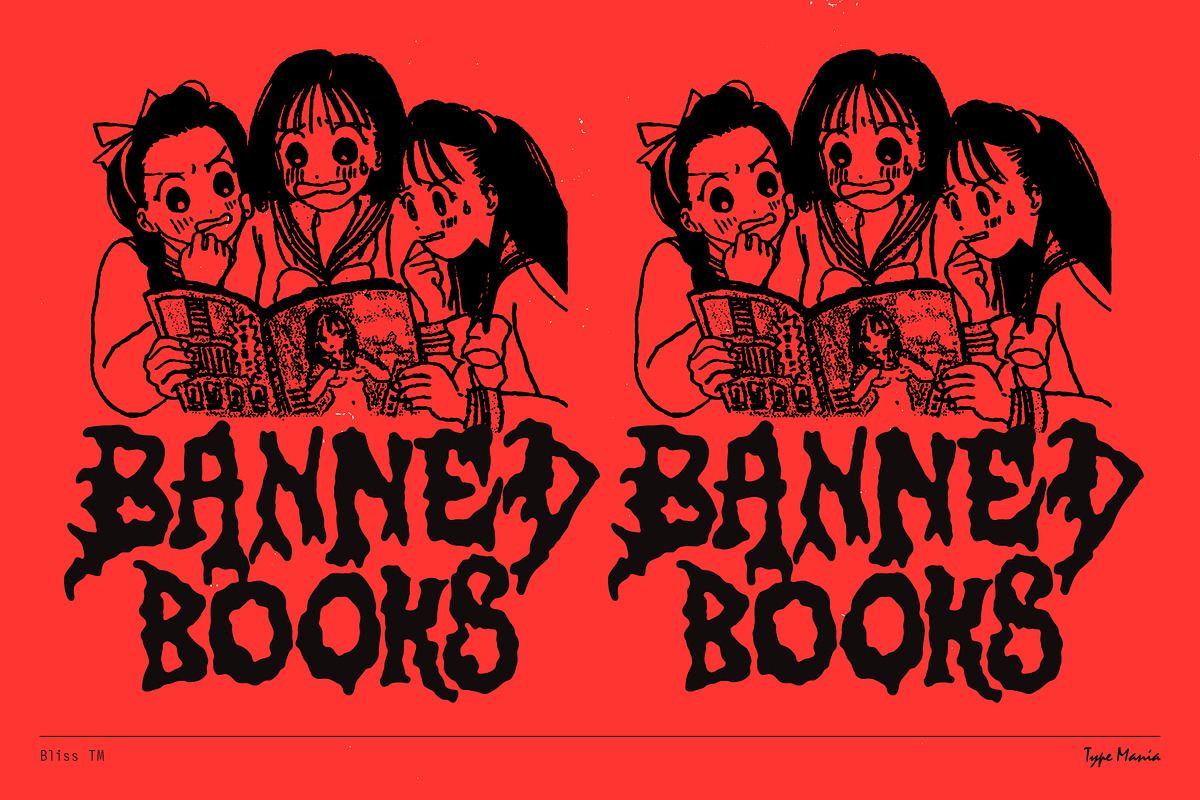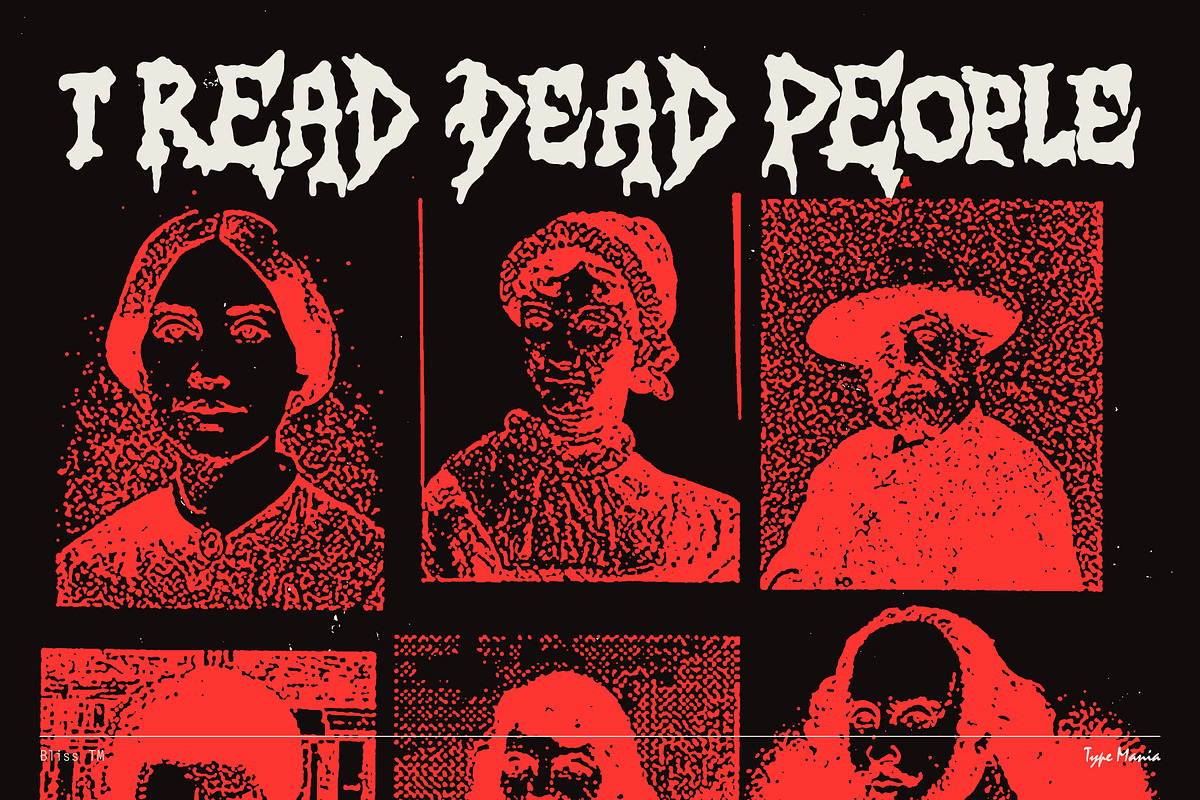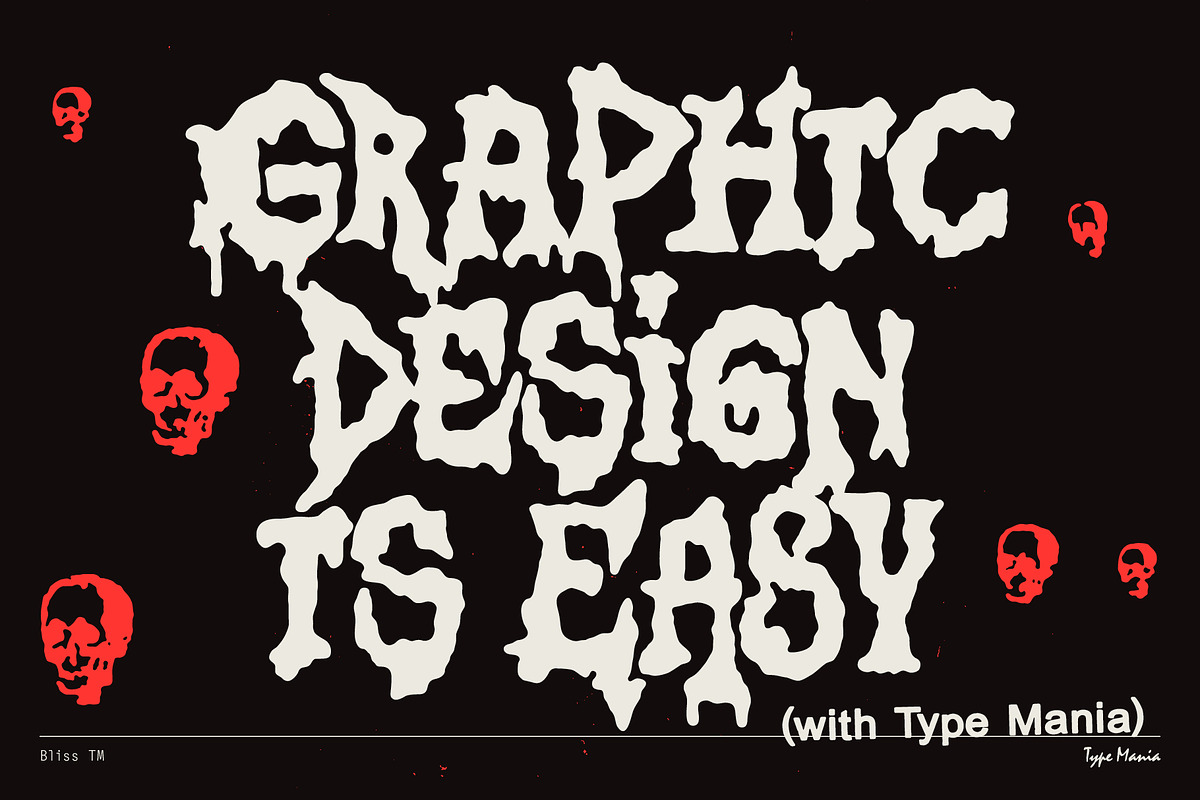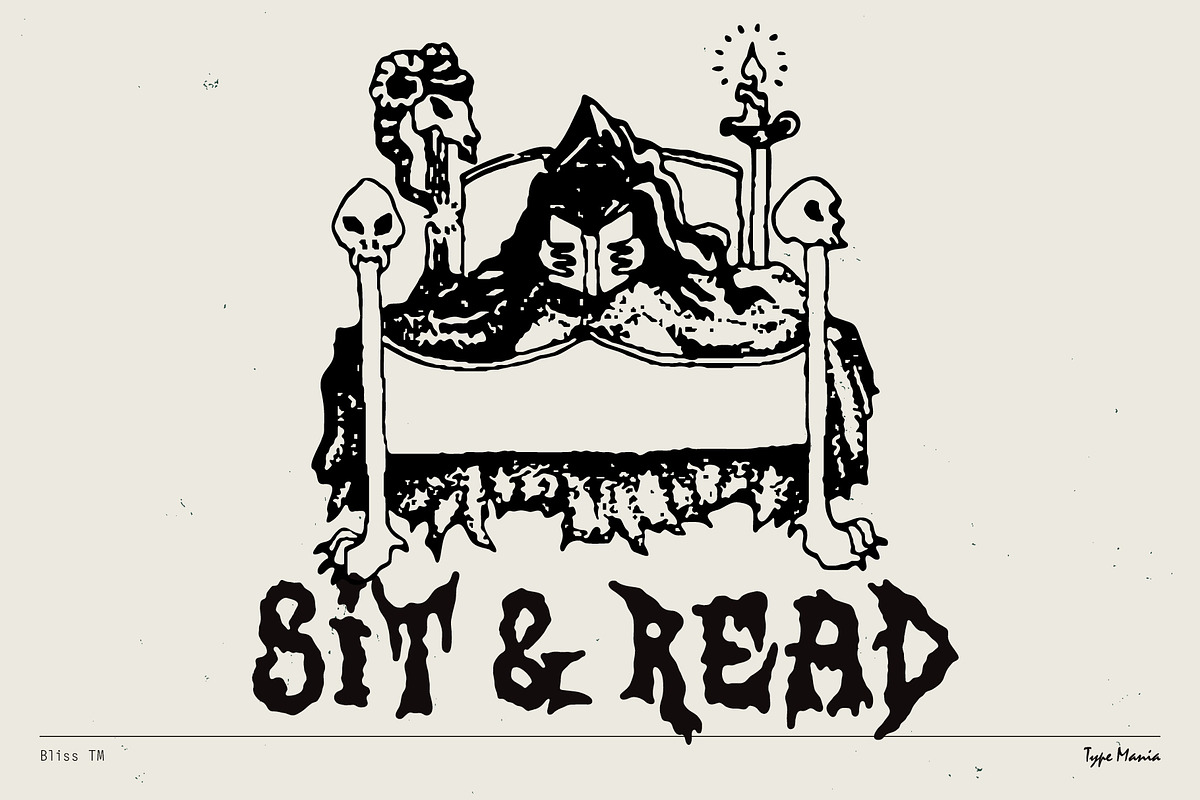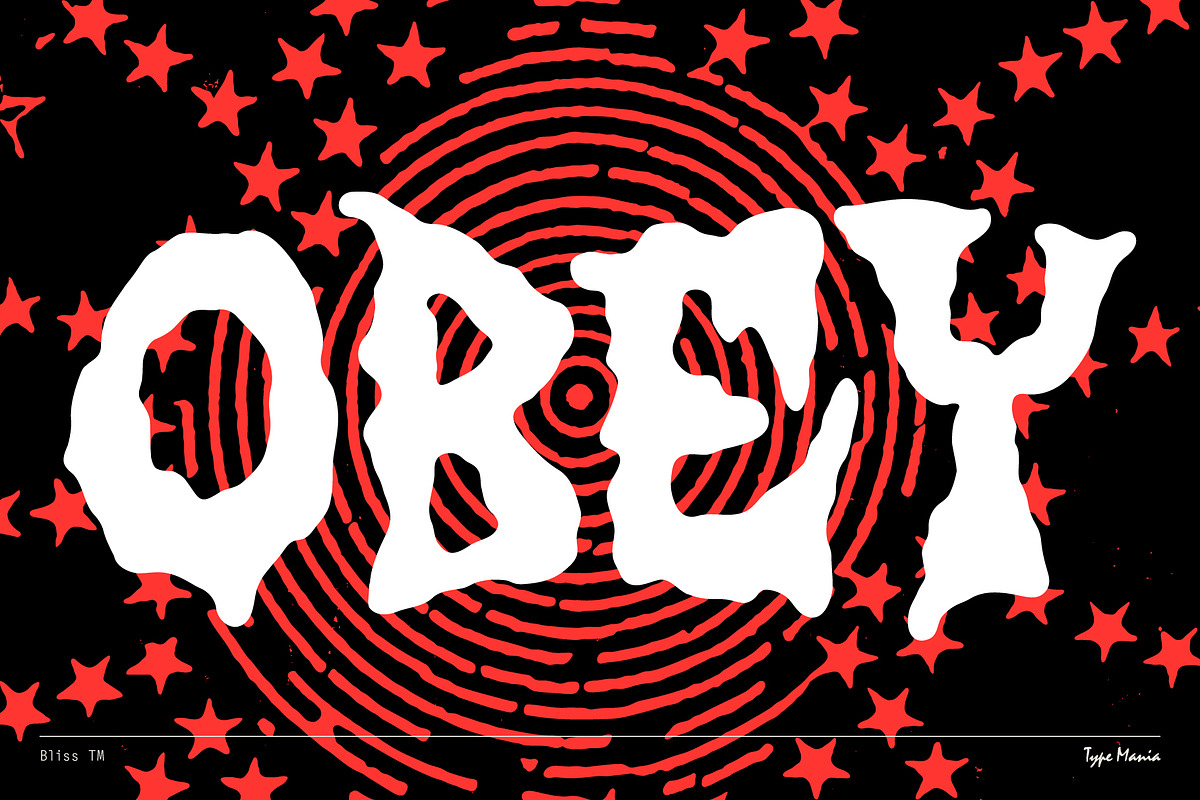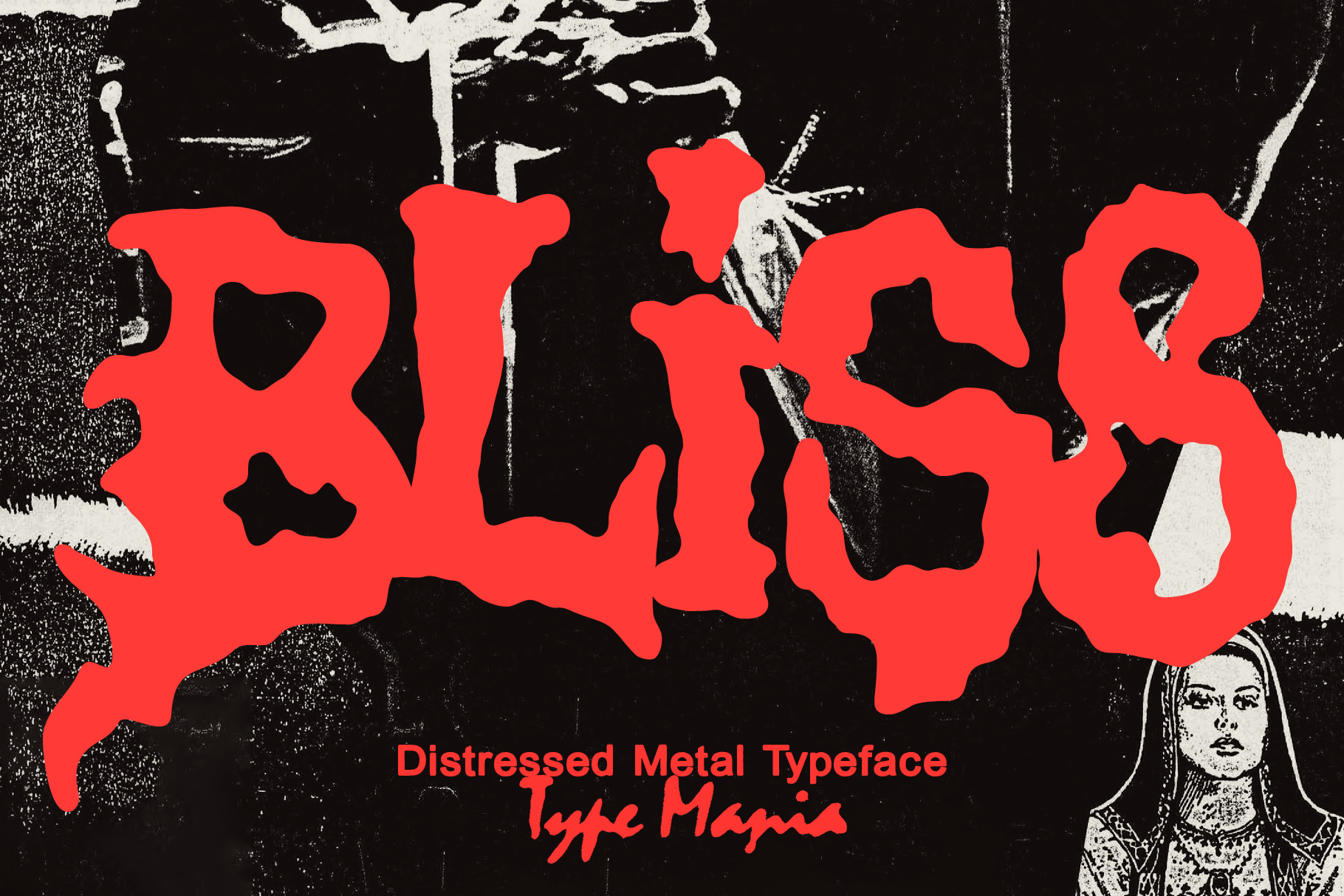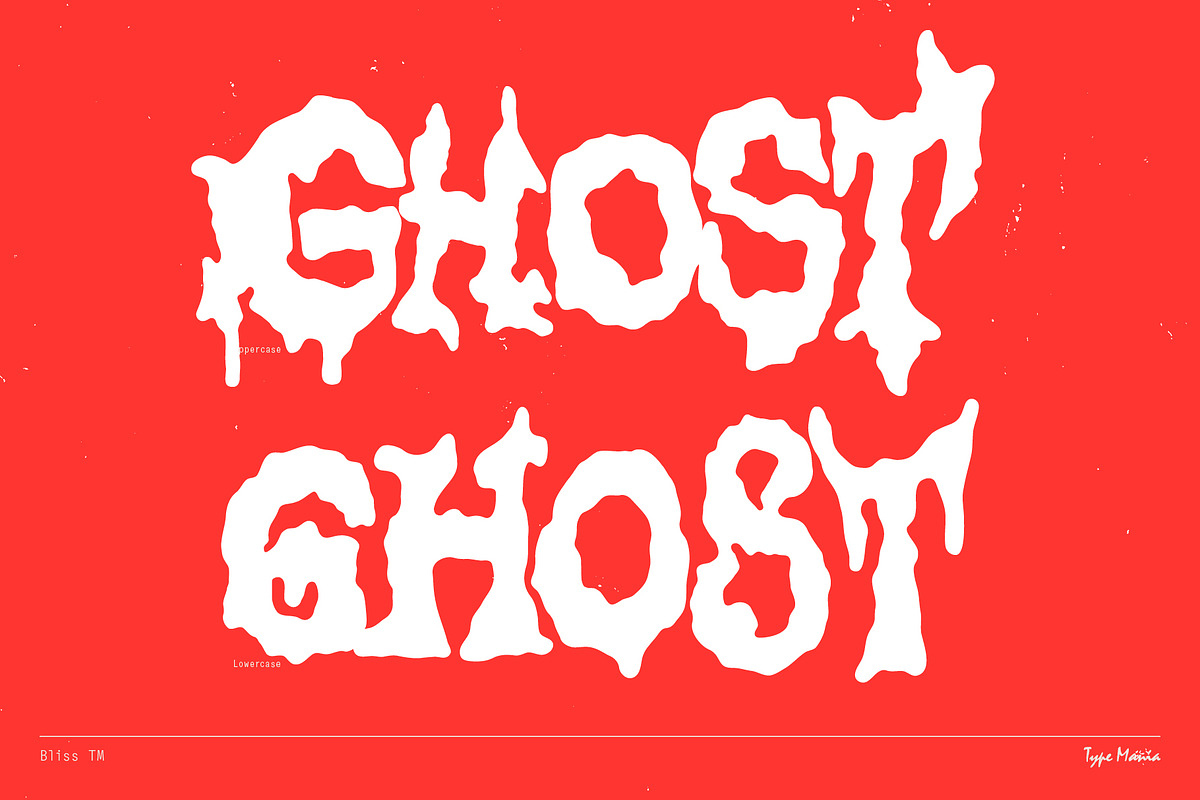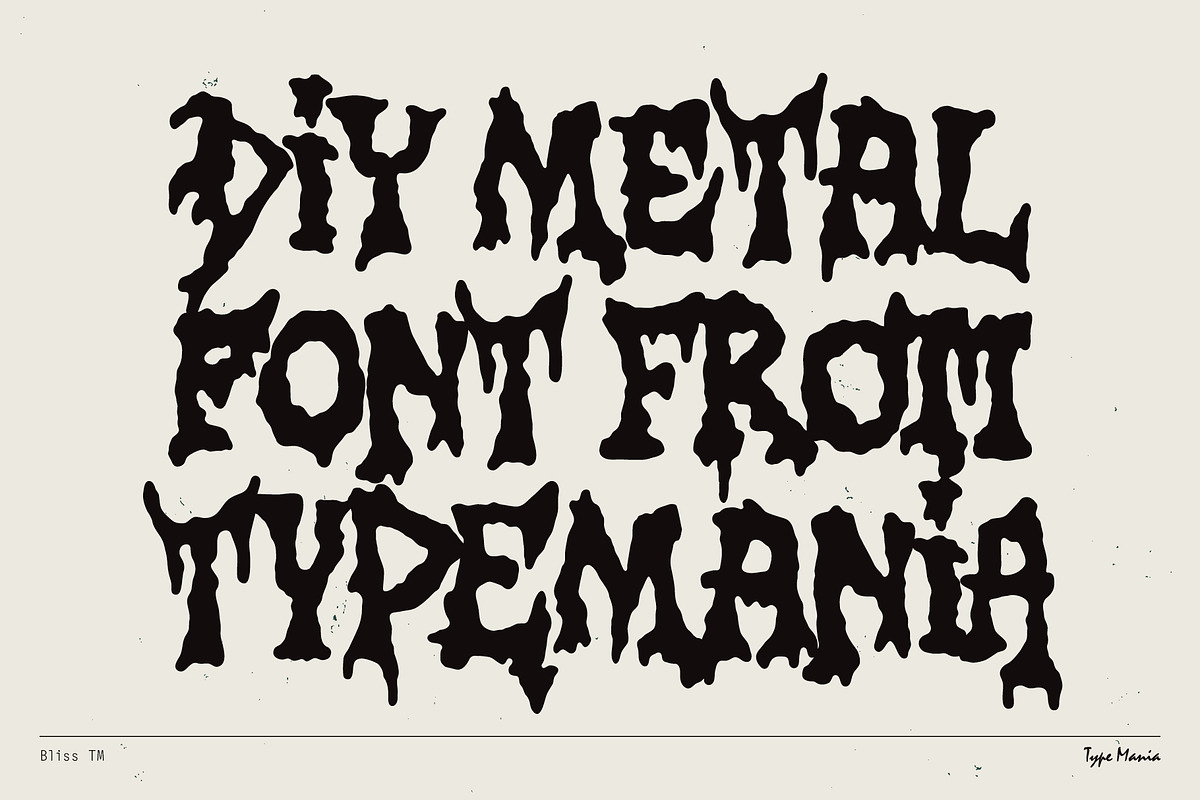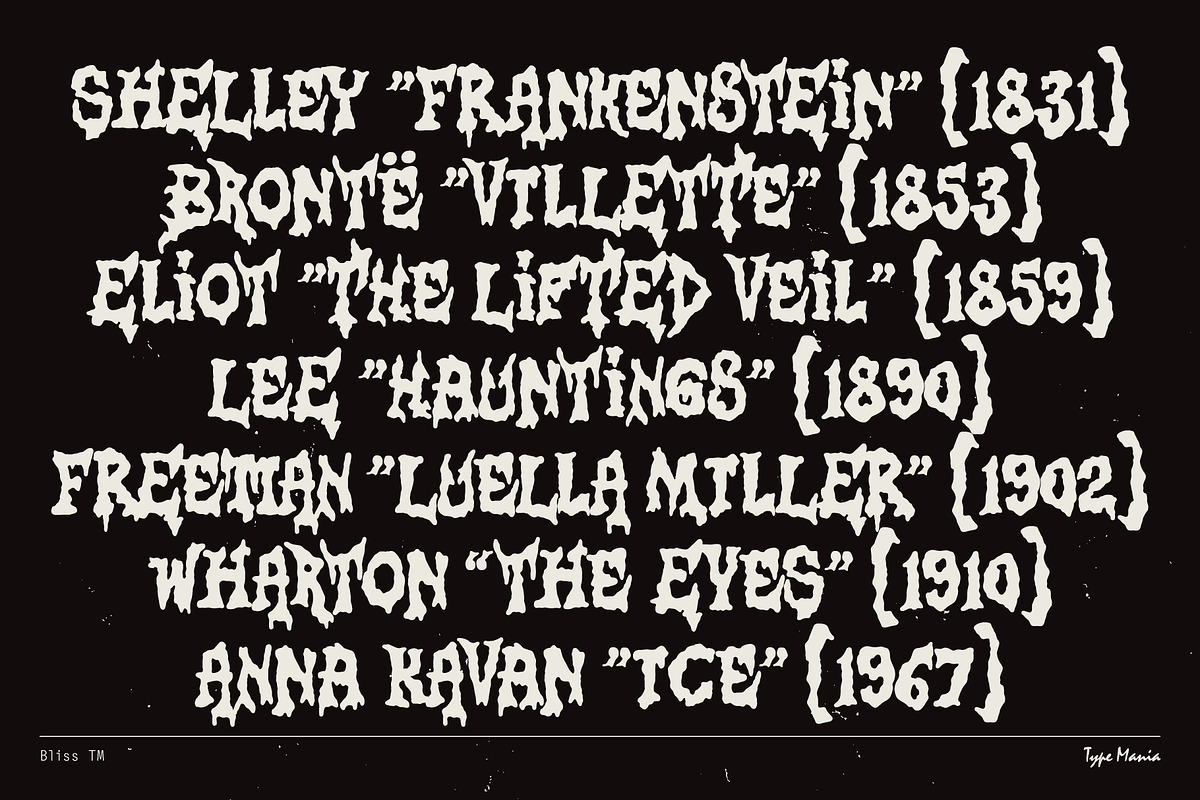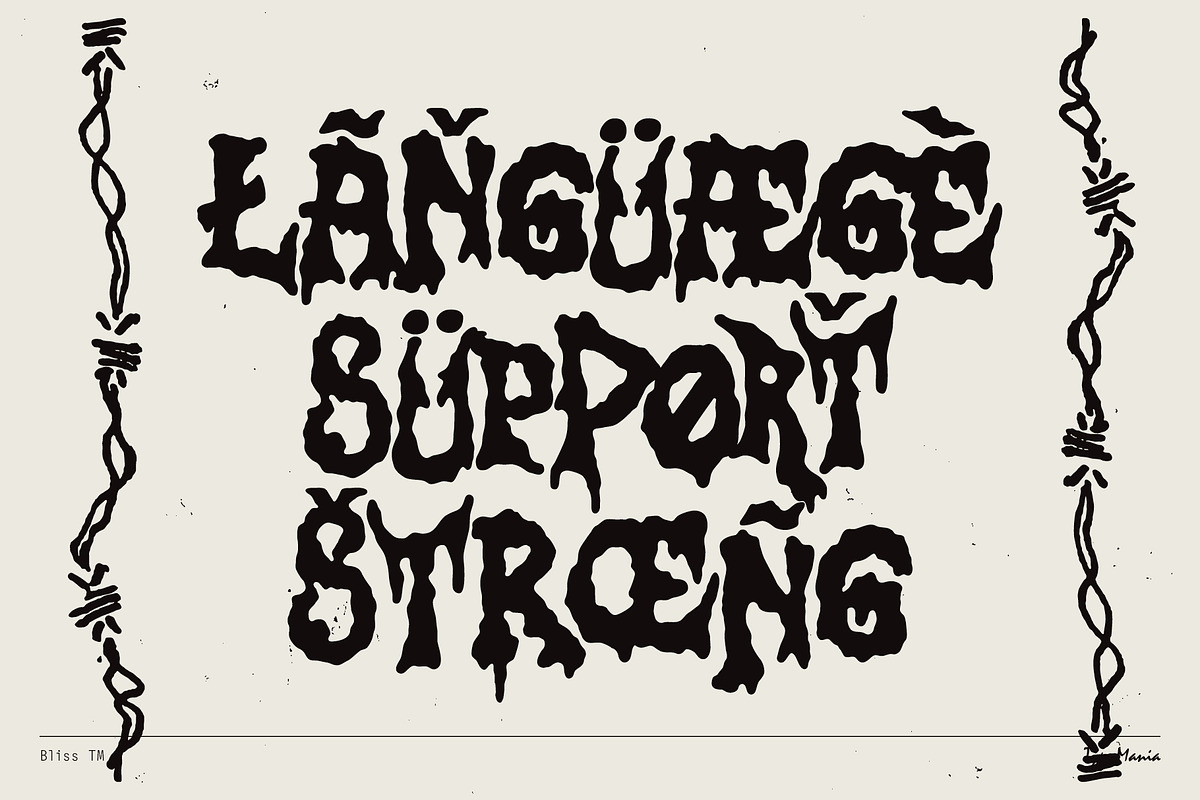
Bliss TM – DIY Vibes Font
Bliss TM is a charming DIY vibes display font with one foot in the grave (the other in bootleg metal merchandise). Hand-cut, over-inked, intentionally imperfect – for Maximum Rocknroll. See if it works for your project, peace ✌️